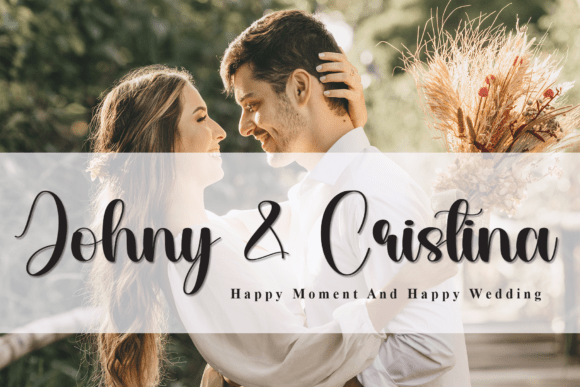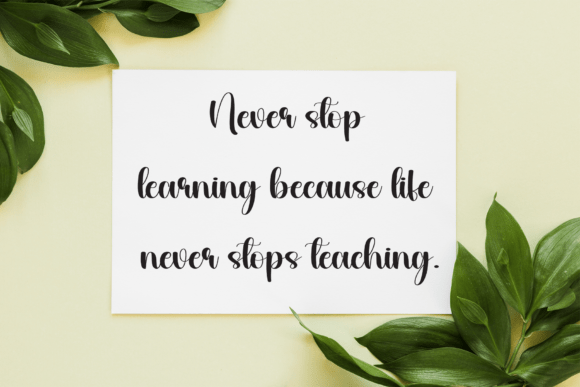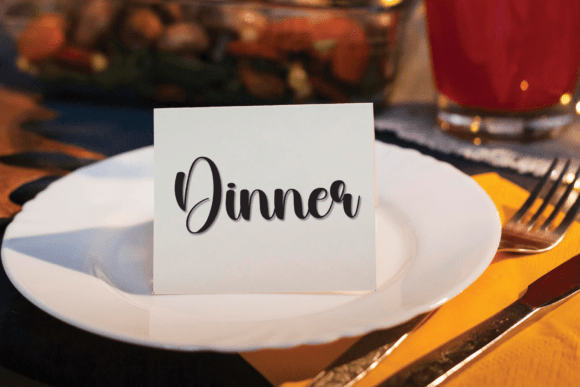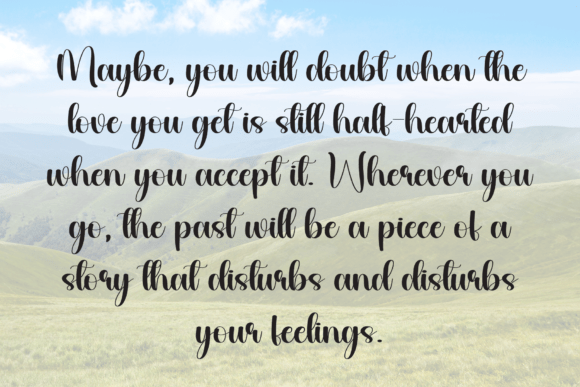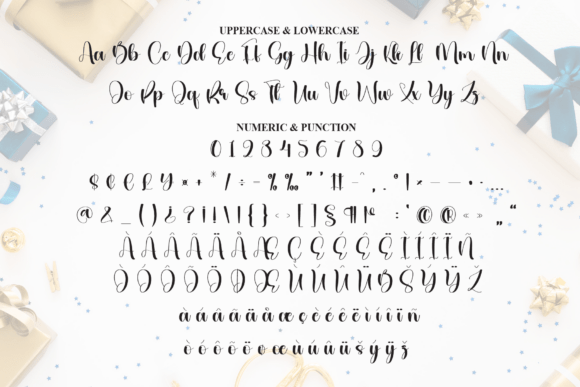
The Perfect Font for Celebrations: Unveiling Hello Birthday Font
Have you ever found yourself sitting at your desk, staring at a blank page, and suddenly feeling the urge to create something special for a loved one’s birthday? The blank page can be intimidating, but what if you had the perfect tool to bring your creativity to life? For designers and crafty individuals, the right font can make all the difference in creating a memorable and joyful celebration.
Enter the Hello Birthday Font, a charming and elegant script font designed specifically for celebration-themed projects. With its thick swashes and playful loops, this font adds a touch of festivity and polish to any design. Whether you’re creating birthday cards, invitations, or party signage, the Hello Birthday Font is the perfect addition to make your projects stand out.
As a designer, you know the value of having a versatile and reliable font in your arsenal. The Hello Birthday Font is a valuable asset for any project that requires a touch of elegance and charm, making it a go-to choice for designers looking to create memorable and happy occasions.
Hello Birthday Font Key Features
- Font Family: Hello Birthday Font is a unique, hand-drawn font designed specifically for birthday greetings.
- Unique Characteristics: Features a playful, cursive style with decorative elements, making it perfect for birthday cards, invitations, and social media posts.
- Language Support: Supports Latin-based languages, including English, Spanish, French, and many more, making it a versatile font for global celebrations.
Hello Birthday Font Review
First of all, I’d like to say that the Hello Birthday Font is a cute and playful script font ✨. The curves and flourishes are reminiscent of handwritten birthday cards, which is exactly the vibe this font is going for. The font family includes several weights, including Light, Regular, and Bold, which is great for versatility. The font is also highly legible, making it perfect for body text or short titles.
One of the best things about this font is its flexibility ✨. You can use it for a variety of projects, from birthday invitations to social media posts. The font is also easy to pair with other fonts, making it a great addition to any design project.
One of the main limitations of this font is its limited character set ⚠️. The font is designed specifically for English language use, and it may not be as effective for other languages. Additionally, the font may not be suitable for long blocks of text, as the letter spacing can become inconsistent.
Overall, I think the Hello Birthday Font is a great choice for designers looking for a fun and playful script font ✨. While it may have some limitations, its flexibility and high legibility make it a great addition to any design project.
- Highly legible and easy to read
- Several weights available (Light, Regular, Bold)
- Flexibility and versatility
- Easy to pair with other fonts
- Designed specifically for English language use
- Limited character set
Practical Application Guide for “Hello Birthday Font”
Here are some tips for getting the most out of the “Hello Birthday Font”:
- Use the font in bold or italic styles to add emphasis to your text.
- Combine the font with other creative elements, such as graphics or images, to create a visually appealing design.
- Experiment with different font sizes and colors to create a cohesive look.
The “Hello Birthday Font” is commonly used for:
- Birthday invitations and party decorations. Alternatives to Hello Birthday Font
Exploring Creative Possibilities with Hello Birthday Font
Project 1: Whimsical Birthday Invitations
Create eye-catching birthday invitations that set the tone for a fun-filled celebration. Use the Hello Birthday Font to add a playful touch to your designs.
Project 2: Custom Birthday Party Decorations
Take your birthday party decorations to the next level by incorporating the Hello Birthday Font into your design. Use it to create personalized banners, signs, or even custom party hats.